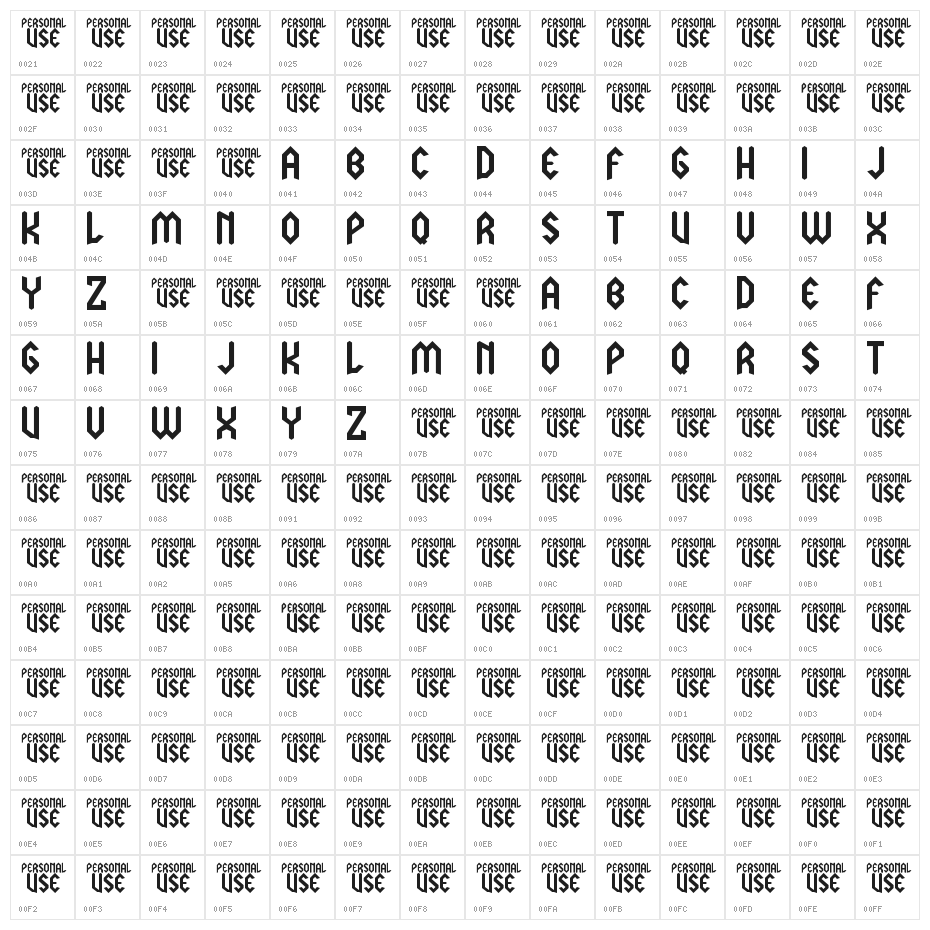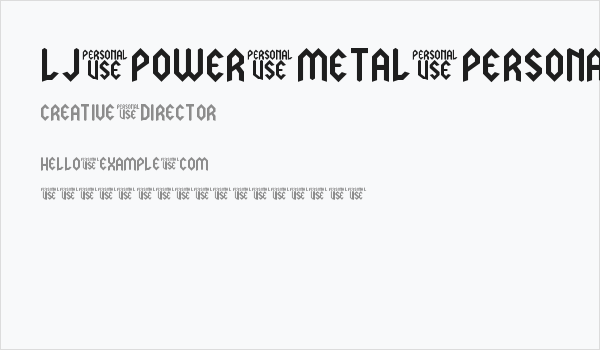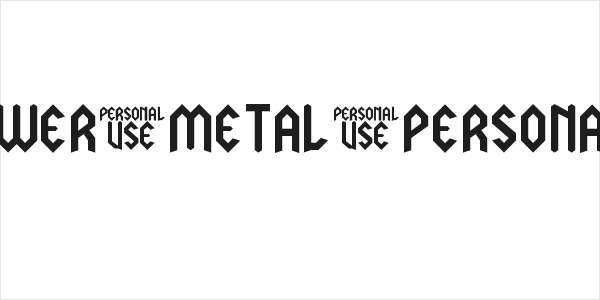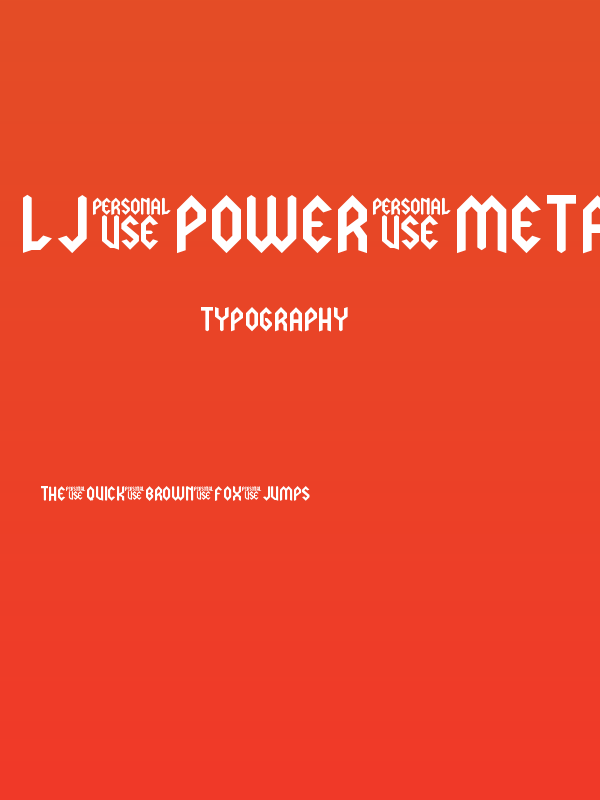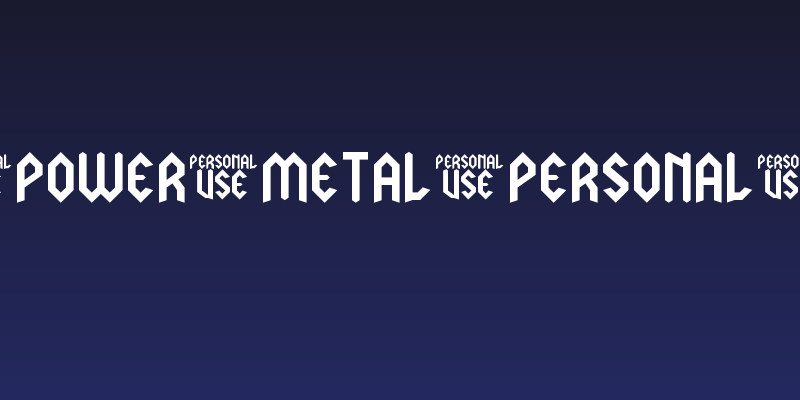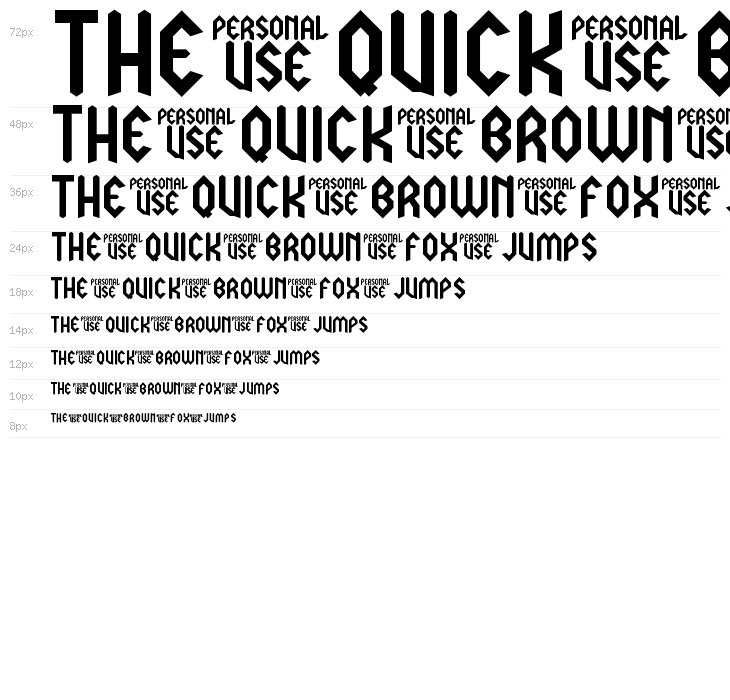
LJ Power Metal PERSONAL USE Font
LJ Power Metal PERSONAL USE Description
This font features a bold and angular design, reminiscent of heavy metal and rock aesthetics. The characters are sharply defined with thick strokes and pointed edges, creating a strong and impactful visual presence. The uppercase letters are particularly striking, with a geometric style that emphasizes vertical and horizontal lines. The font's aggressive and edgy appearance makes it ideal for projects that require a bold statement. Its unique style draws attention and conveys a sense of power and intensity.